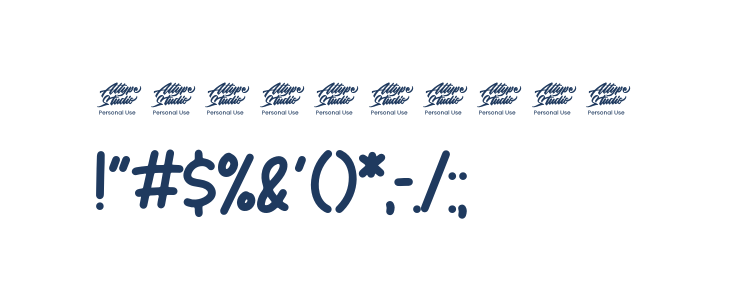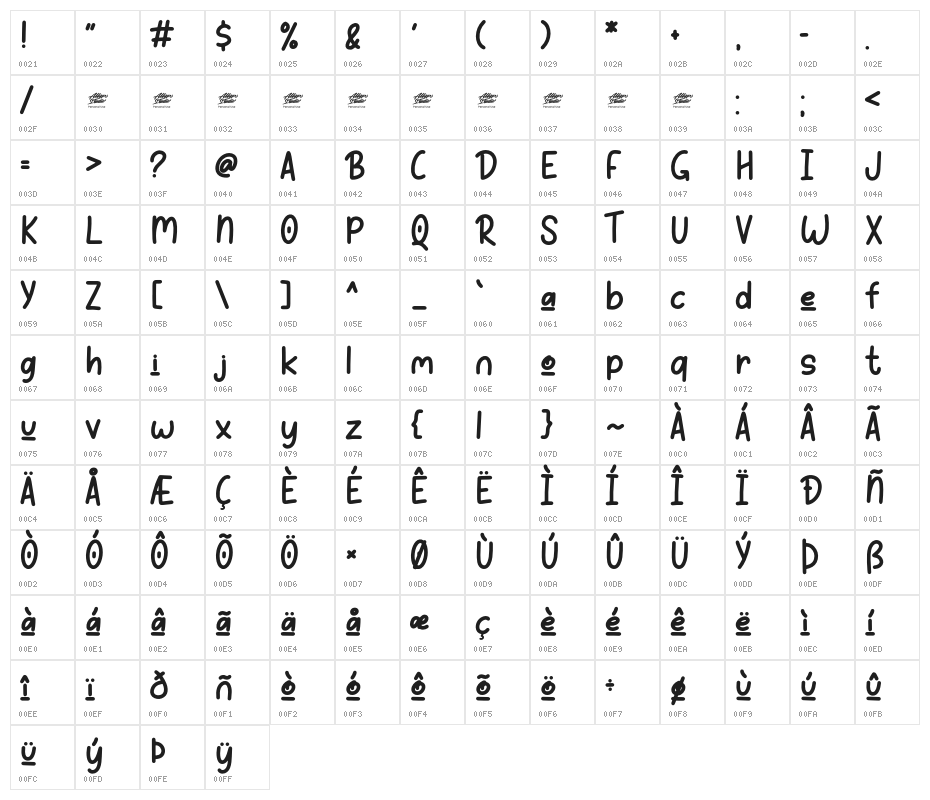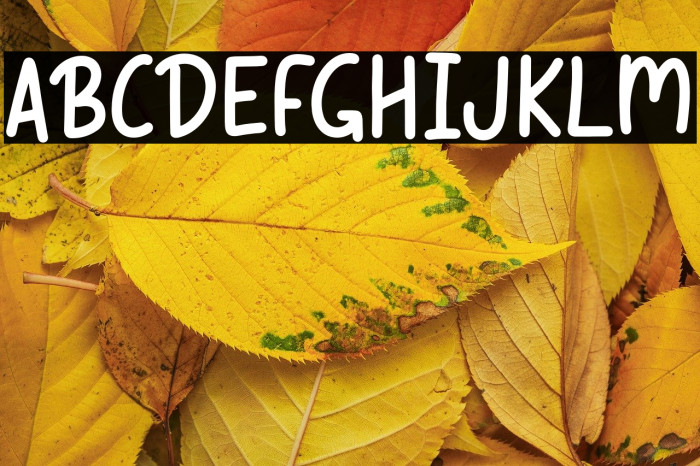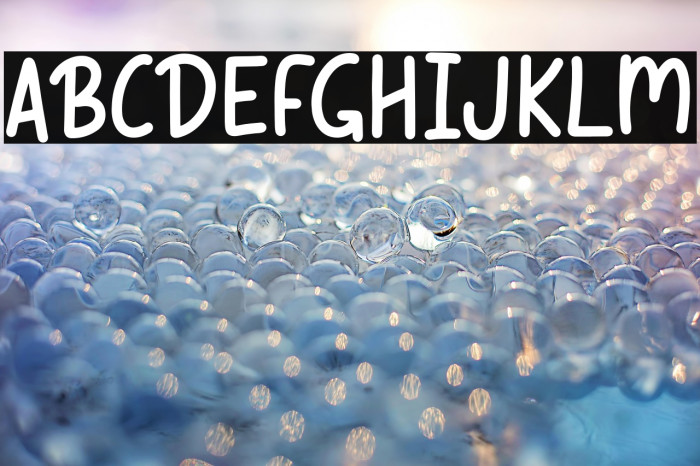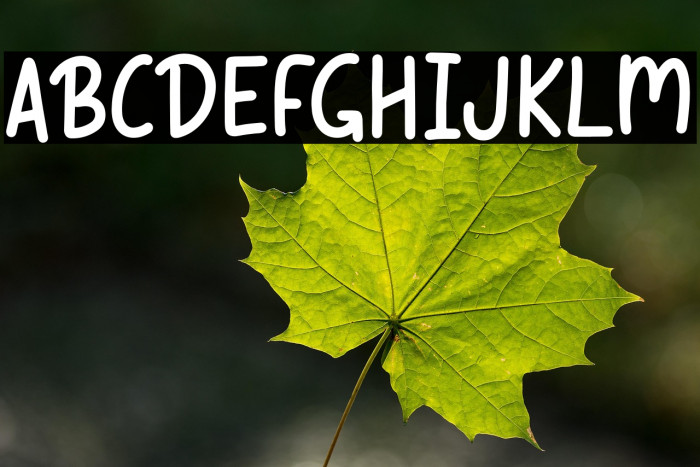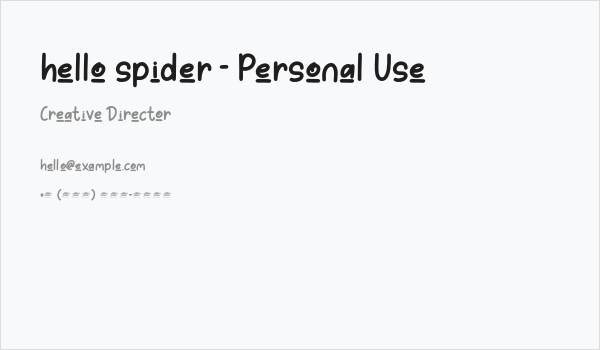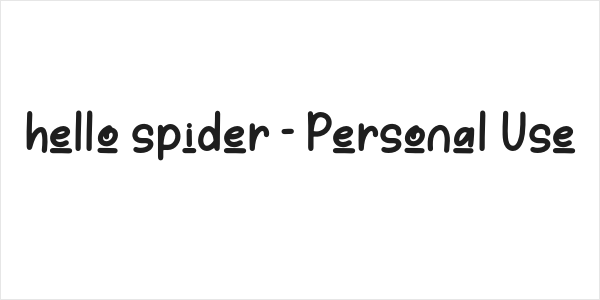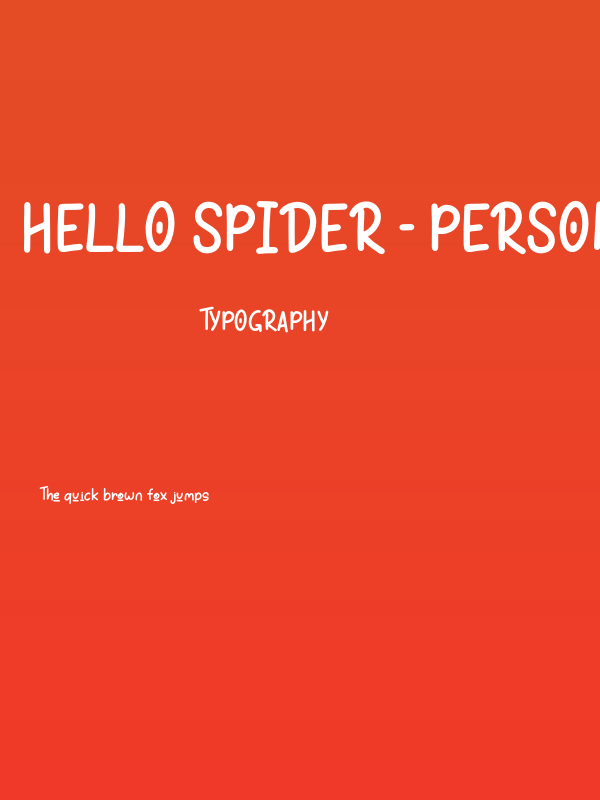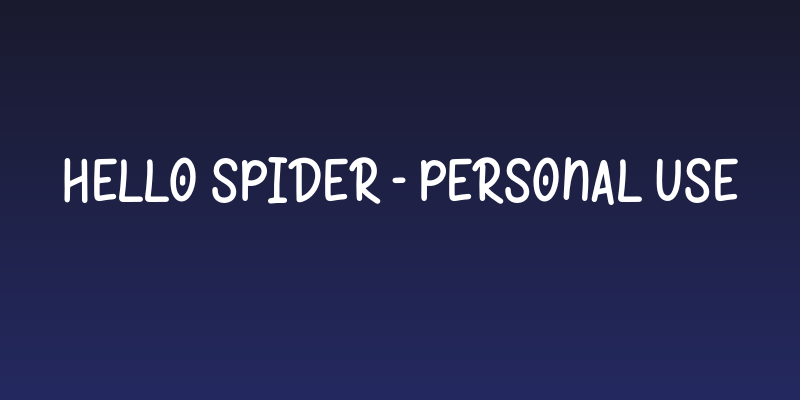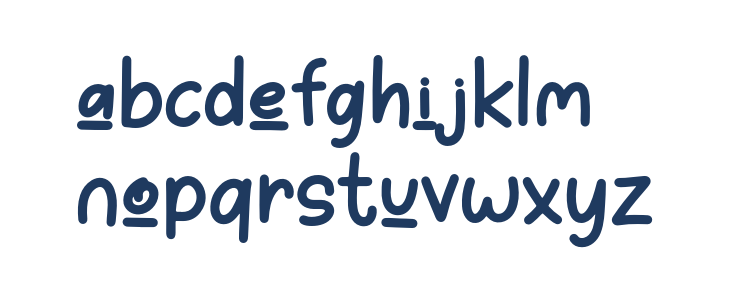
hello spider - Personal Use Font
hello spider - Personal Use Description
This playful and bold font features a handwritten style with rounded edges and a casual, friendly appearance. The uppercase and lowercase letters maintain a consistent flow, with slightly exaggerated curves that add a whimsical touch. The numbers and special characters are designed to match the overall playful aesthetic, making them suitable for creative projects. The font's thick strokes and rounded forms give it a strong presence, while the informal style makes it approachable and fun. Its unique character is perfect for adding a personal touch to any design.
| Overall Style | Playful |
| Use Case | Logos, Headlines, Posters |
| Proposed Projects | Ideal for children's books, playful branding, greeting cards, and creative posters. |